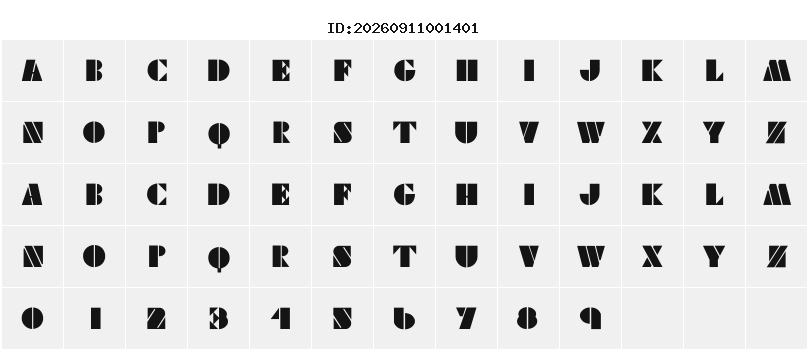
• Font Name: Viking Stencil
• Full Font Name: Viking Stencil
• Designer: High-Logic - Erwin Denissen
About Viking Stencil.ttf
Viking Stencil.ttf is a modern, elegant sans-serif font designed for ultimate readability and visual harmony. Perfect for branding, headlines, web design, and print materials.